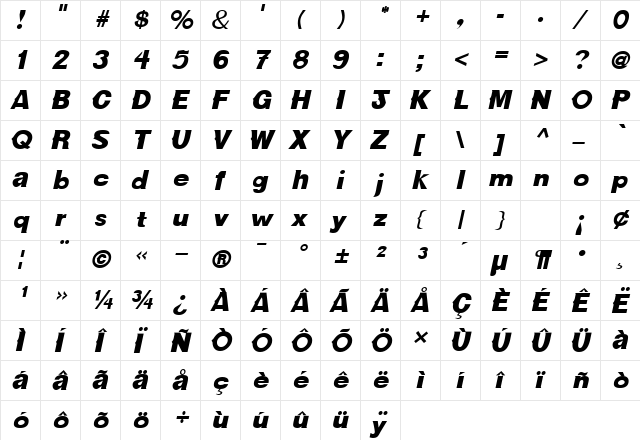
CactusSSK BoldItalic Font Preview
Design Context for CactusSSK Typeface
CactusSSK takes a measured approach to typography — its balanced proportions and neutral character make it a reliable workhorse for both digital and print work. Its italic angle brings a sense of urgency and motion to the letterforms. The heavy weight commands attention and anchors typographic hierarchies.
Pro Tip: Try CactusSSK for annotation and caption copy alongside an upright companion — the contrast in angle creates a dynamic but ordered typographic system.